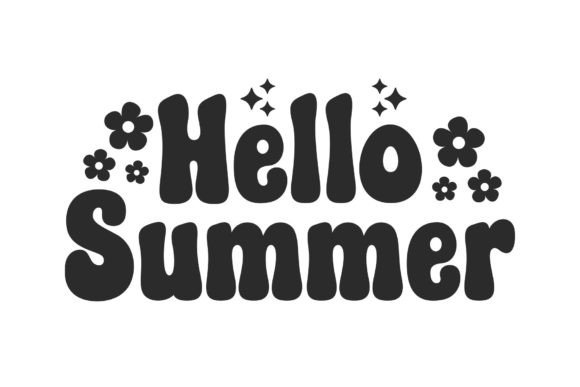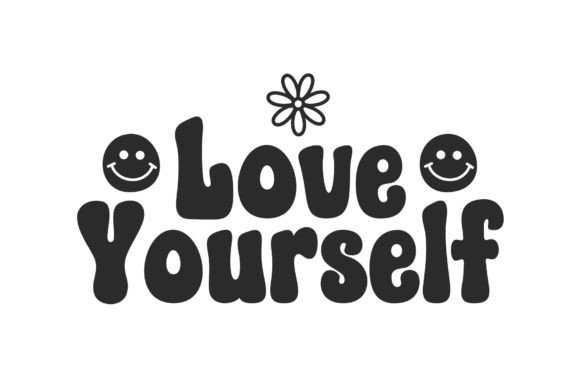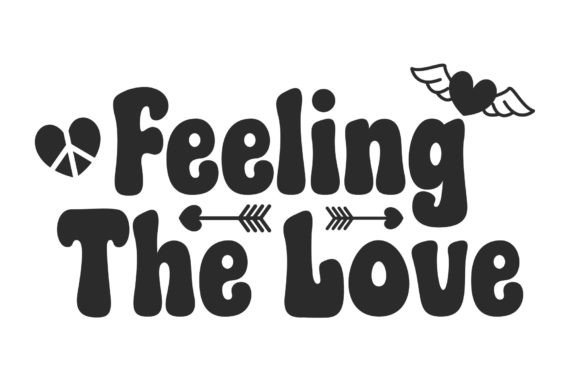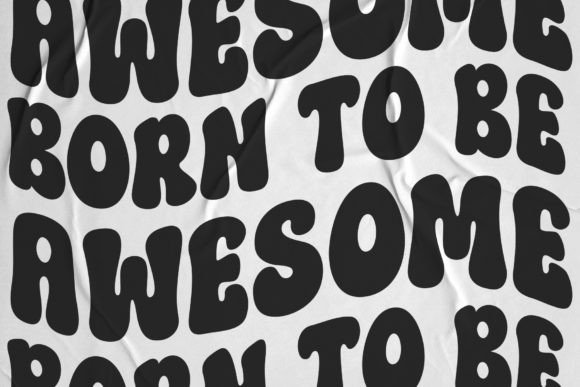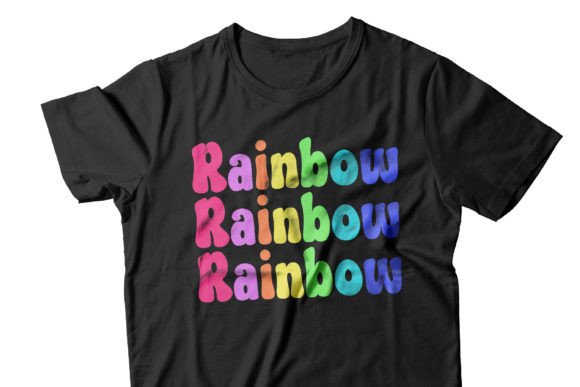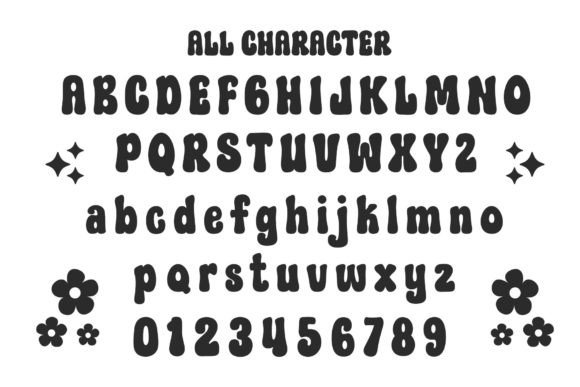
Introduction to Happy Hippie Font
Happy Hippie is a fun and groovy display and dingbats font with a funky style.
This font is perfect for creating t-shirts, stickers, childrenโs book covers, social media posts, and much more Use this unique font to add that special retro touch to any design idea.
Key Features of Happy Hippie Font
Why Choose Happy Hippie Font?